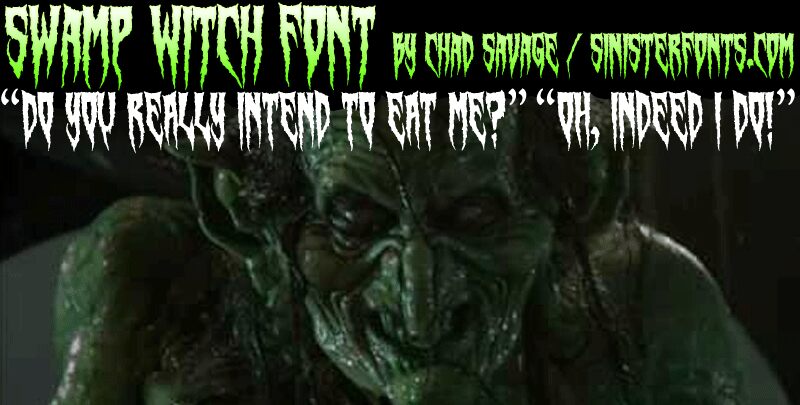
Swamp Witch, designed by Sinister Visions Inc., is a free horror display font with torn, tapering strokes and a dense, jagged silhouette. The uneven edges and long pointed trails make the letters resemble dripping bark or shredded cloth, with an appropriately swampy, handmade roughness.
A haunted attraction poster is its clearest role, since the sharp forms read like part of the scenery rather than neutral lettering. It also suits horror film graphics and metal merchandise, where the torn contours can echo claws, roots, and decaying textures. Halloween event signage and dark fantasy game artwork offer another natural setting for its aggressive, organic shapes.
Swamp Witch Font by Chad Savage.
The font was created in 2009 and hand-lettered just after Halloween.